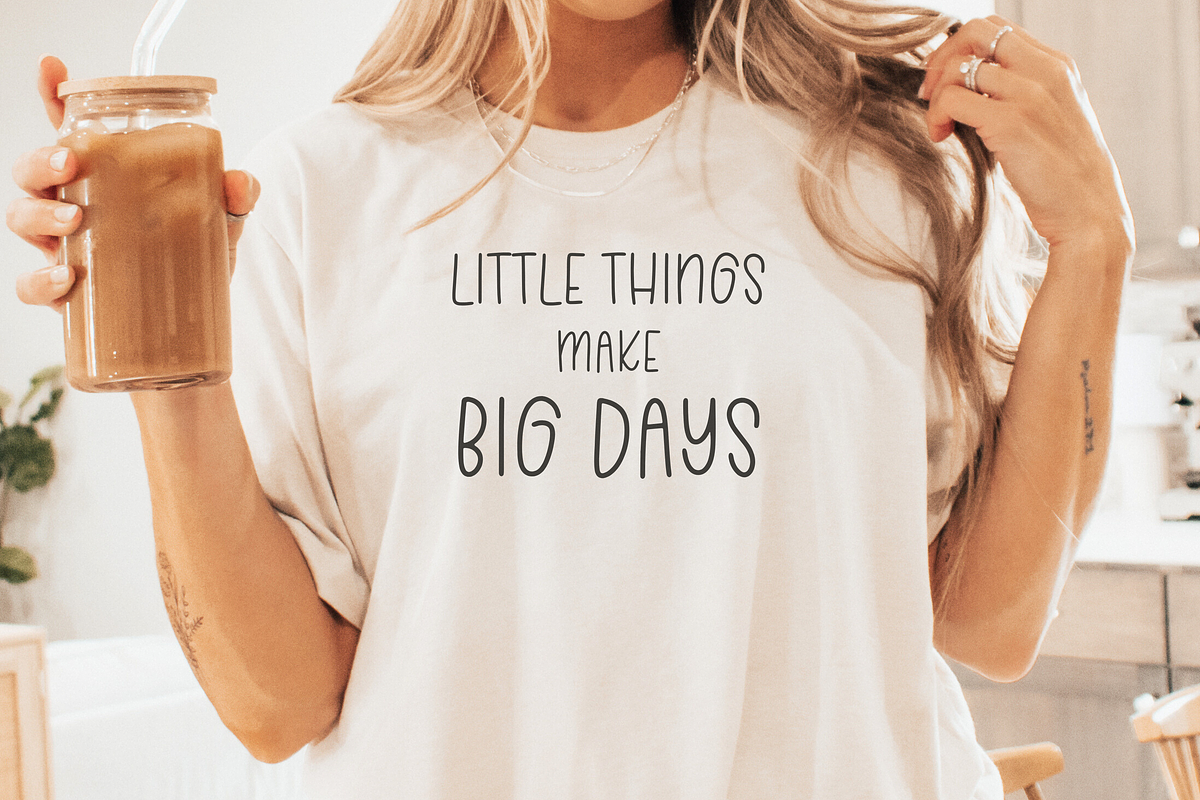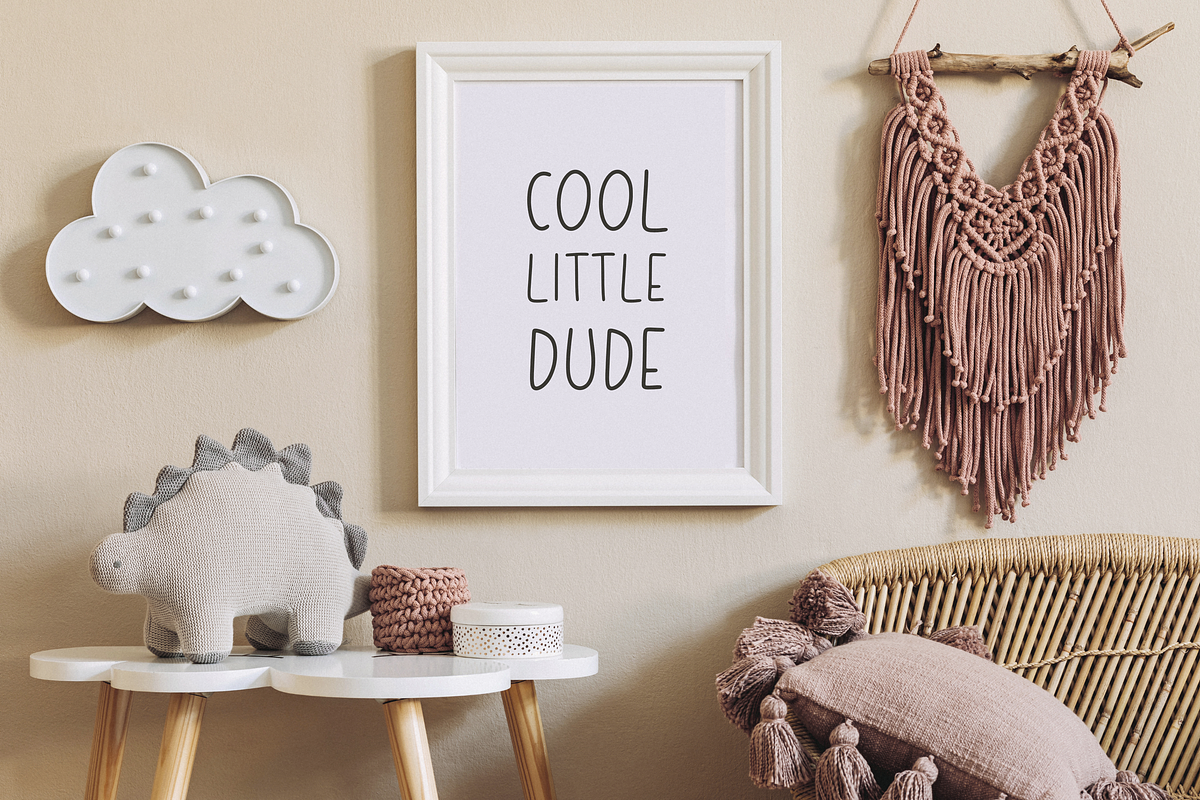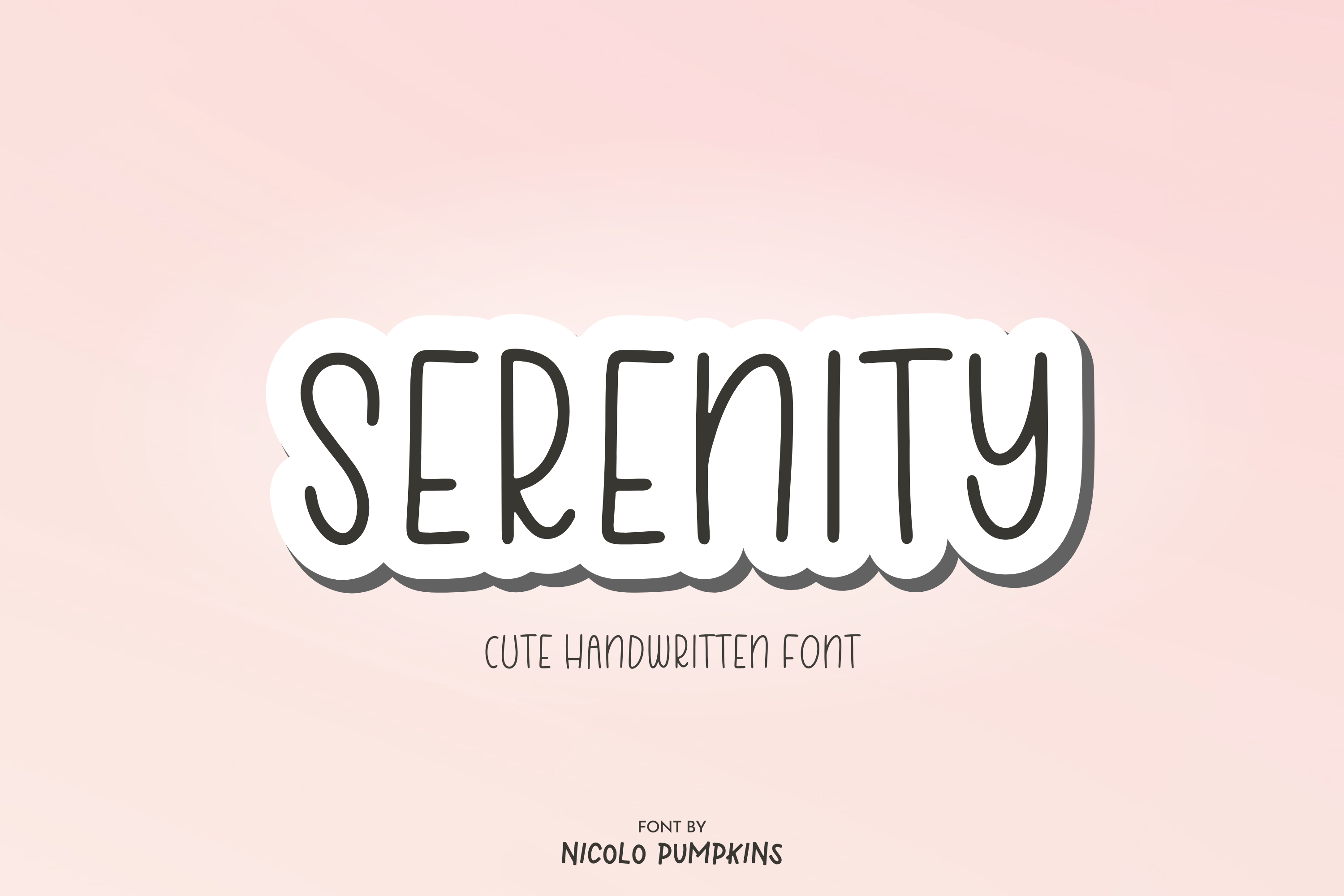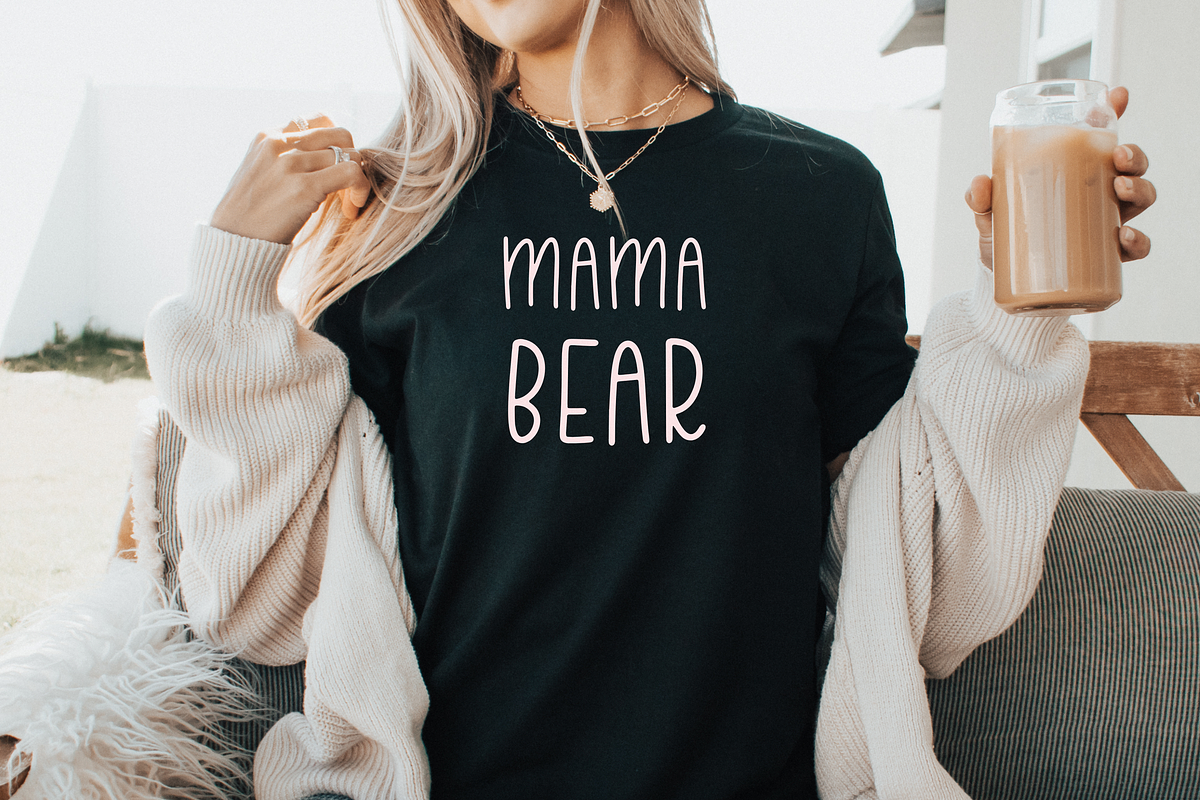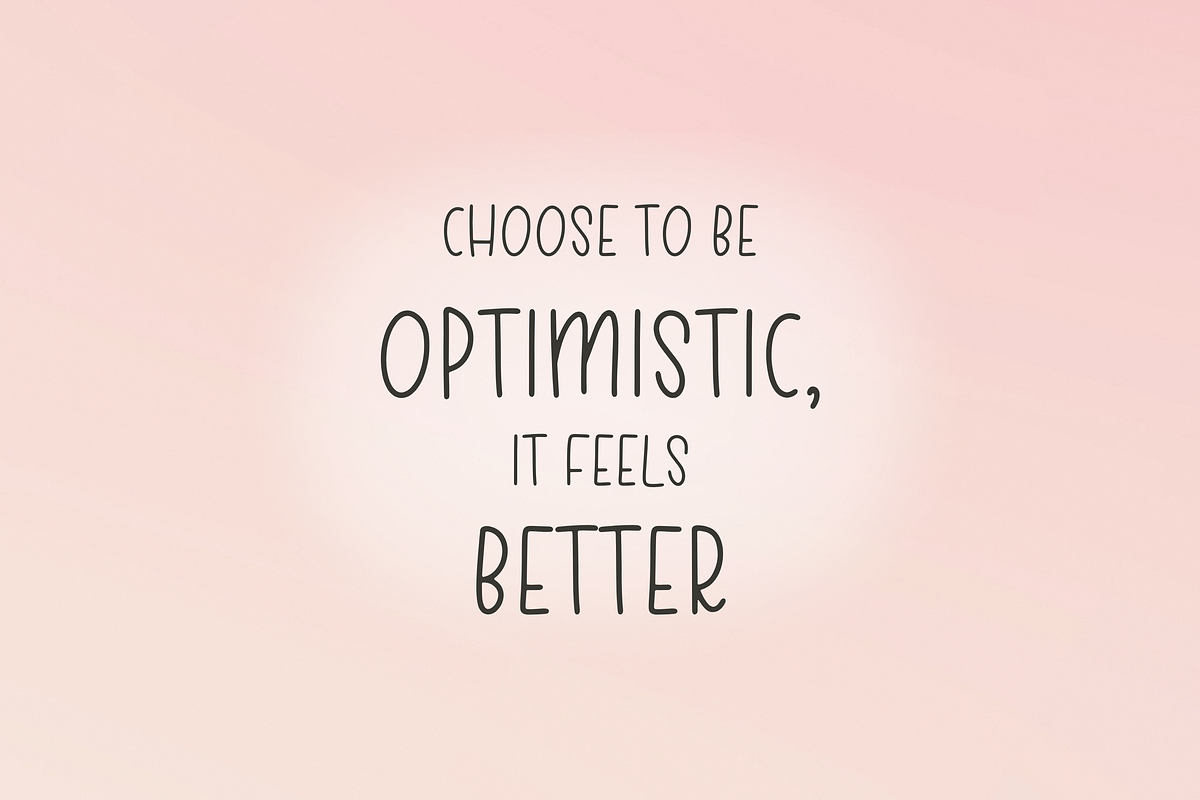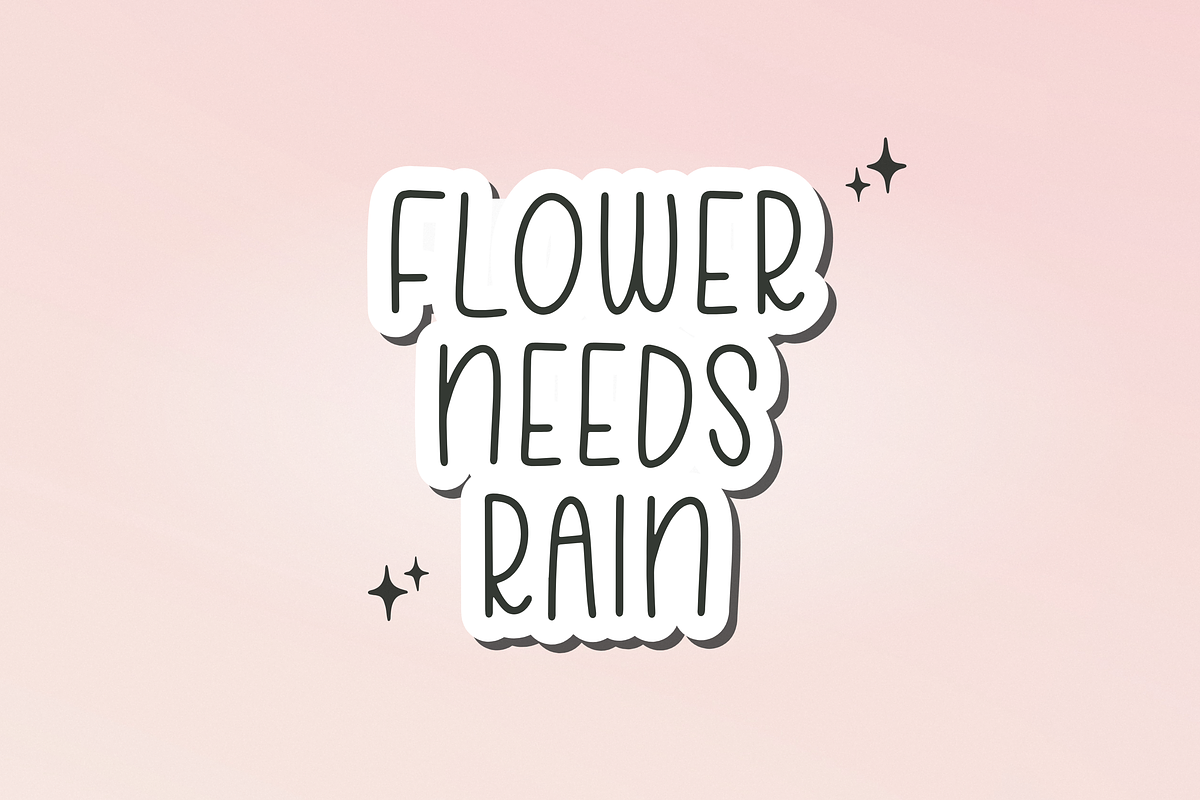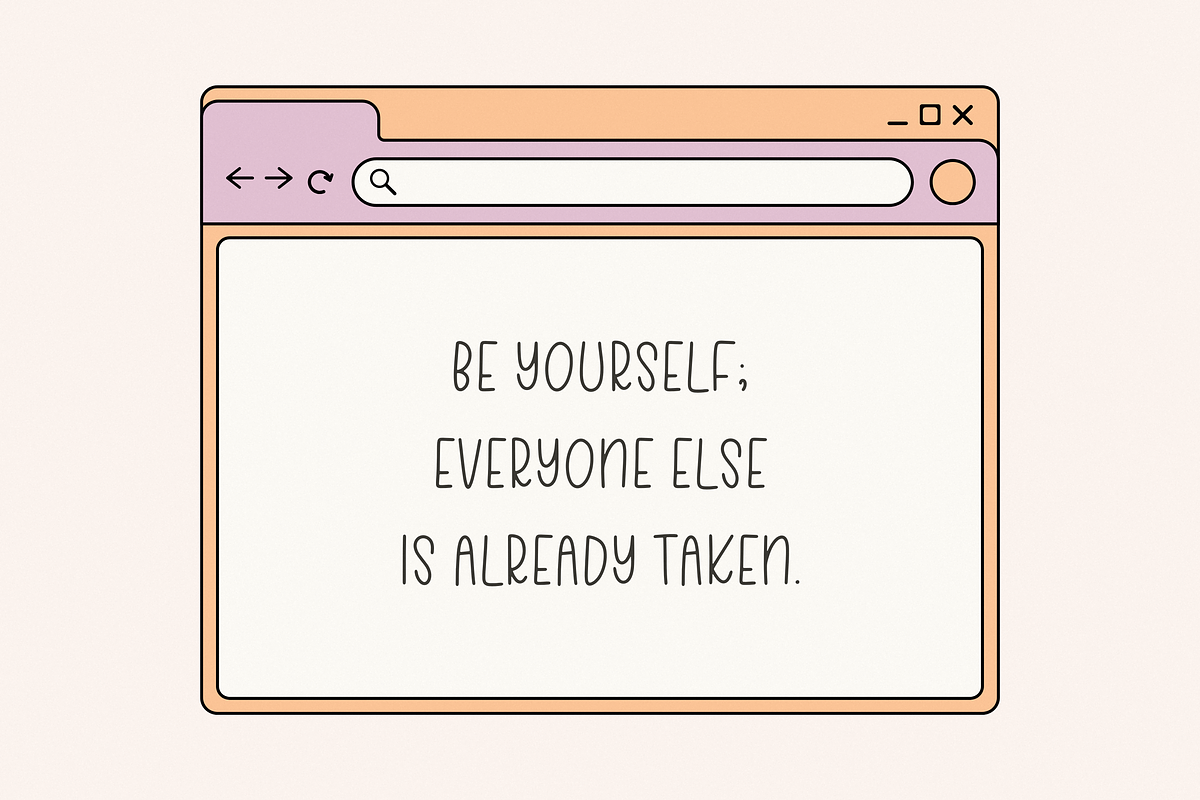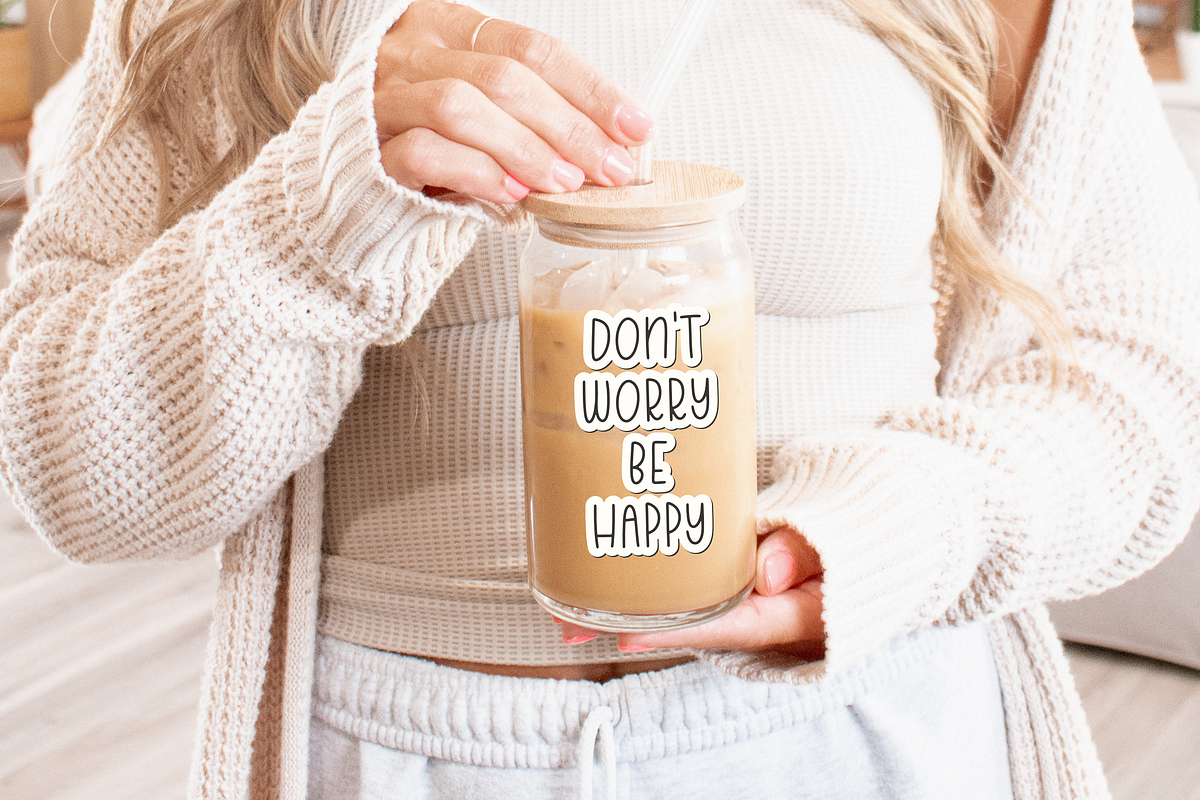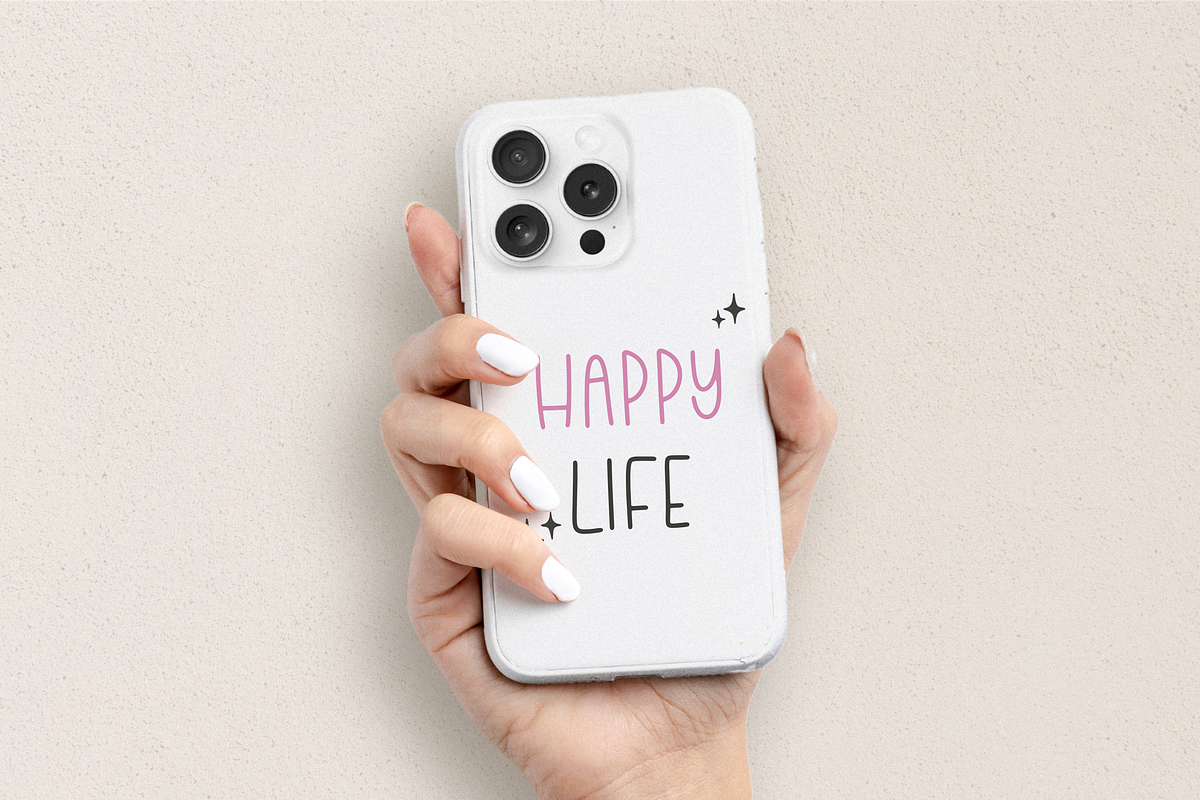
SERENITY Font
SERENITY FONT A cute & neat handwritten font. (ALL CAPITAL LETTER)
✦ SERENITY FONT is perfect for: digital note taking on digital planner, shirts, mugs, invitations, greeting cards, Procreate, Cricut and more!